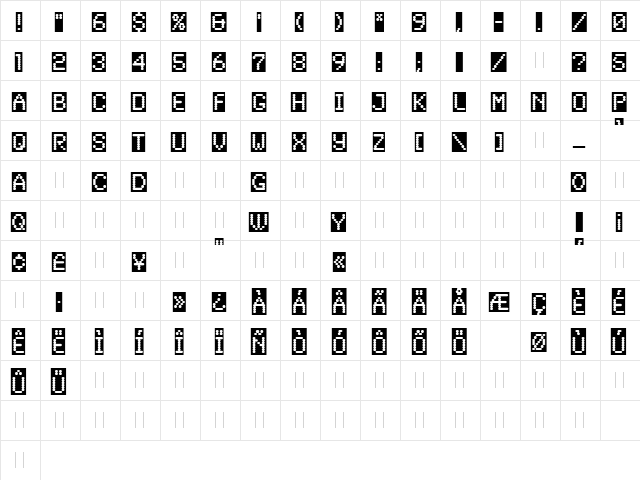
Synchro Reversed LET Plain
Design Context for Synchro Reversed LET Typeface
Synchro Reversed LET takes a measured approach to typography — its balanced proportions and neutral character make it a reliable workhorse for both digital and print work.